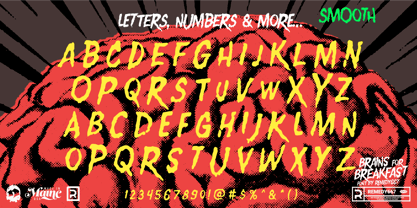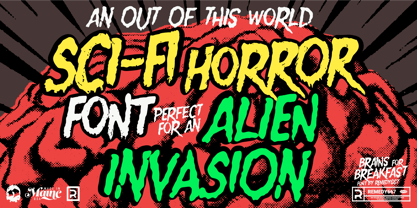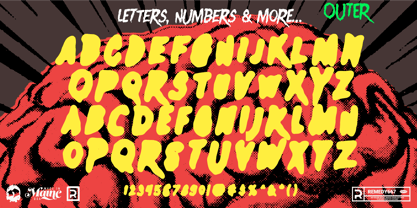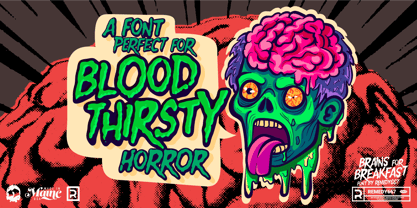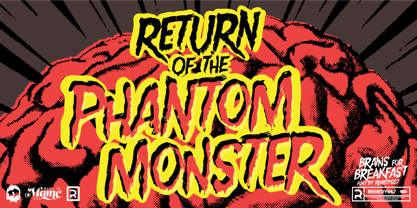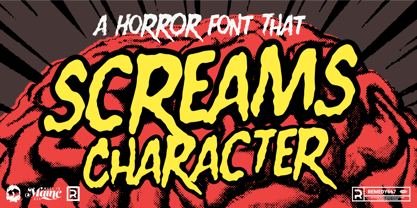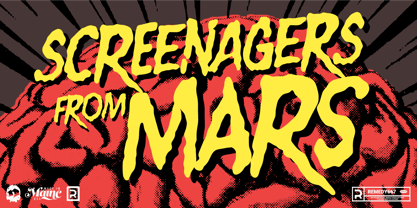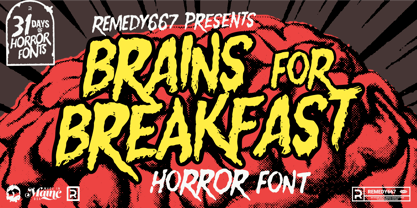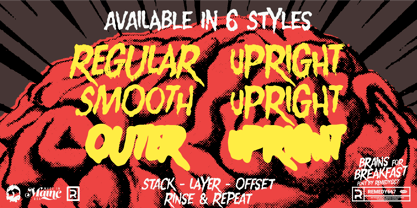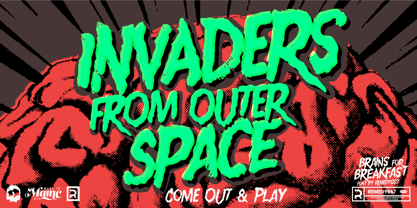
Brains for Breakfast
by Remedy667
The Brains for Breakfast Font Family was designed by Nick Polifroni and published by Remedy667. Brains for Breakfast contains 6 styles and family package options. More about this family
Goooood morning, ghouls and boils! Feast your hollow eyes upon Brains for Breakfast—a snarling slab of undead punk attitude, ripped fresh from the spray-painted walls of dive clubs and the grimy frames of modern zombie cinema! This typeface shambles, slashes, and sneers its way across your designs with just the right mix of rot and rebellion.
Whether you’re summoning the chaotic energy of punk rock flyers or the grisly grime of the living dead, Brains for Breakfast delivers a rancid, ragged unease that refuses to stay buried. It’s loud. It’s messy. It’s hungry. And it’s risen from the grave courtesy of the fiends at Remedy667.
Features
• Ragged, punk-inspired forms perfect for chaotic horror energy
• Rotten, uneasy texture ideal for zombie-themed designs
• Bold display shapes for posters, titles, and undead promotions
• Versatile for modern horror, splatterpunk, and grimy street-style projects
Designers: Nick Polifroni
Foundry: Remedy667